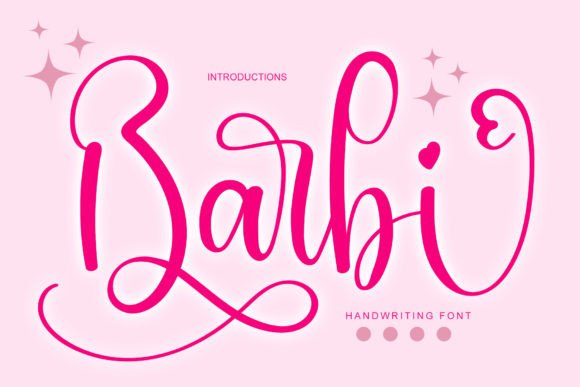
Introducing Barbi Font: The Epitome of Elegance and Grace for Your Creative Endeavors
In the realm of typography, where letters dance and words take flight, there exists a font that captivates hearts with its alluring beauty and timeless charm: Barbi Font. This exquisite script font, meticulously crafted by the talented artisans at YanStudio, is a symphony of elegance and grace, designed to elevate your creative projects to new heights of sophistication.
Barbi Font: A Stroke of Creative Genius
Barbi Font exudes personality and flair, effortlessly adding a touch of magic to any design. Its meticulously crafted curves and delicate flourishes evoke a sense of nostalgia, while its modern twist ensures that it remains relevant and captivating in the digital age. Whether you're a seasoned designer or just starting your creative journey, Barbi Font is the perfect companion for your artistic endeavors.
Unleash Your Creative Potential with Barbi Font
With Barbi Font as your creative ally, the possibilities are endless. Imagine your logos adorned with Barbi's elegant strokes, your branding projects imbued with a touch of timeless charm, and your photographs transformed into captivating works of art. Barbi Font is the perfect choice for adding a personal touch to invitations, greeting cards, and any other project that calls for a touch of sophistication.
Dive into a World of Creative Versatility
Barbi Font's versatility knows no bounds. Its ability to seamlessly adapt to a wide range of design styles makes it the perfect choice for a multitude of projects. From whimsical wedding invitations to sleek business cards, Barbi Font effortlessly elevates the ordinary into the extraordinary. Its PUA encoding further enhances its versatility, allowing you to effortlessly access a treasure trove of glyphs and swashes, unlocking a world of creative possibilities.
Experience the Beauty of Barbi Font Today
Barbi Font is more than just a collection of letters; it's an invitation to embark on a creative journey where imagination reigns supreme. Its captivating charm and endless versatility make it the perfect choice for designers seeking to create truly remarkable works of art. Join the creative revolution and experience the transformative power of Barbi Font today.